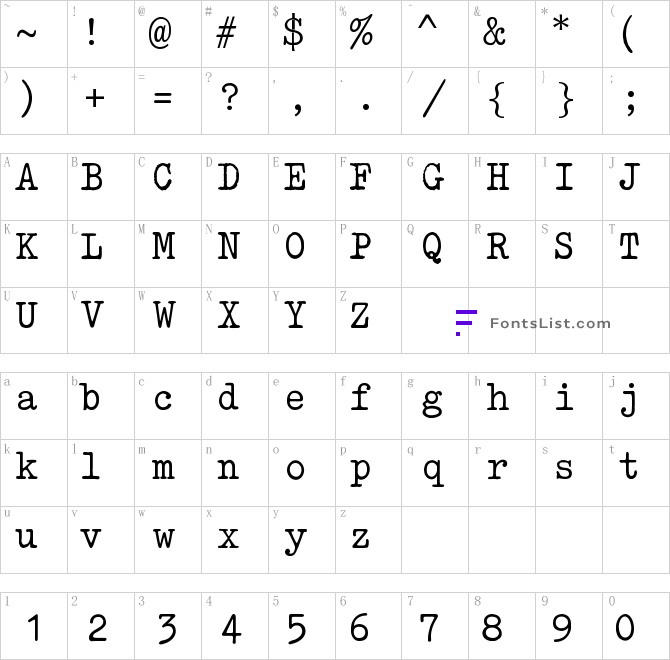
- Font Name:am_type1
am_type1.ttf is a very beautiful artistic font, am_type1.ttf is widely used in the design and printing of various books and pictures,am_type1.ttf has a strong visual impact,am_type1.ttf is a commonly used font in newspapers, magazines and books, and is used in posters, e-commerce Poster design, store design, logo design, font design and other fields.am_type1.